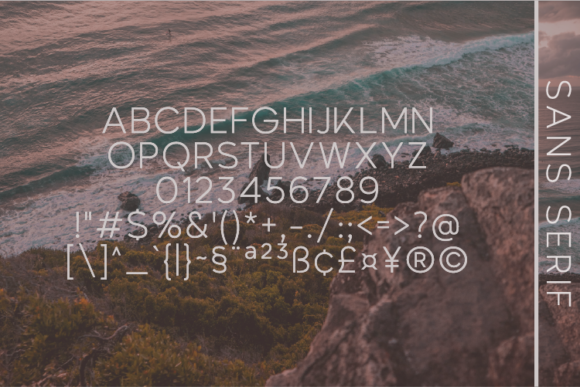
Discover the Perfect Font for Your Next Design Project
Have you ever been stuck on a design project, searching for the perfect font to bring your vision to life? You know, that moment when everything else feels just right, but the font is the missing piece that’s keeping you up at night? That’s where Aleonya Font comes in – a modern and sophisticated sans serif font designed to elevate your designs and make them truly unforgettable.
As a designer, you know how crucial the right font can be in making a lasting impression. Aleonya Font is a true must-have, perfect for logos, branding, packaging design, and so much more. Its masterful design makes it a valuable addition to any designer’s toolkit, and we’re excited to share its story with you.
Aleonya Font Key Features
- Font Style: Aleonya Font is a modern sans-serif font designed for digital and print media.
- Unique Characteristics: Aleonya Font features a distinctive x-height and a strong, geometric feel, making it ideal for use in headlines and titles.
Aleonya Font Review
I recently had the chance to work with the Aleonya Font, and I have to say it’s an interesting choice for designers. ✨ One thing that really stands out is its unique aesthetic – the mix of modern and vintage elements gives it a distinctive look that can work well in the right context. The font is also highly legible, making it a great option for body text.
However, there are some limitations to consider. ⚠️ One of the biggest drawbacks is its limited character set, which can make it difficult to use for languages that require a wide range of characters. Additionally, the font can feel a bit overbearing at larger sizes, which may not be ideal for headings or titles.
Here are some key pros and cons to keep in mind:
- ✨ Unique aesthetic that can add visual interest to designs
- ✨ Highly legible, making it a great option for body text
- ⚠️ Limited character set may not be suitable for all languages
- ⚠️ Can feel overbearing at larger sizes
Overall, I think the Aleonya Font is a solid choice for designers who are looking to add a bit of personality to their work. While it may not be the best option for every project, it can be a great addition to the right design.
To get the most out of Aleonya Font, try using it in combination with other fonts to create a unique and eye-catching design. You can also experiment with different font sizes, colors, and styles to create a cohesive look.
Aleonya Font is perfect for:
- Artistic and creative projects